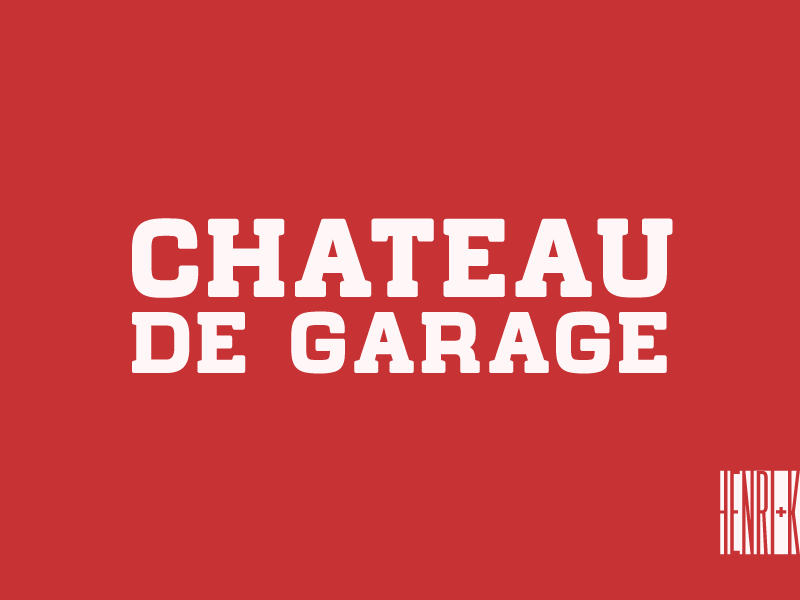
Preview and download Chateau de Garage Font. Created by HENRIavecunK in Fancy Old School styles with Free for personal use license.
Chateau de Garage is a bold but still soft slab serif, with a slight retro feeling. This font is free for PERSONAL USE ONLY! Fortunately commercial licenses is starting at 5 USD (That gives you the right to use the font commercially for a small business), slightly bigger companies pay 10 USD, and fortune 500, or or similar, pay 50 USD. Just use the ”donate.htm” file located in the same .zip as this font or the ”donate”-button at the download page. For other uses please contact henriavecunk@gmail.com and you will get a quote. Thanks again, HENRIavecunK henriavecunk@gmail.com |